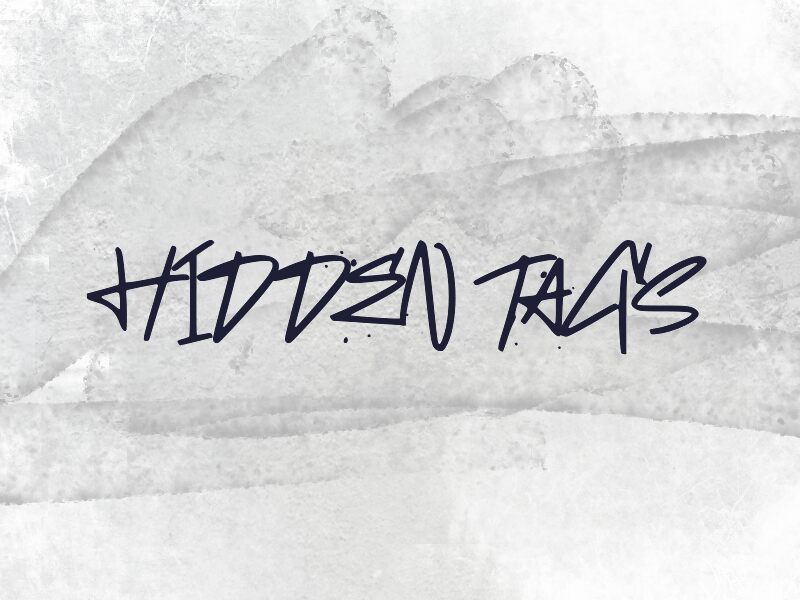
h Hidden Tags font by wep is a free graffiti font full of dynamic energy. The designer studied the elements and patterns of traditional writing systems such as calligraphy and combined them with a modern contemporary edit. Expect a lively and unique writing style with a bold presence and superb clarity. The font comes in just one weight which makes it easy to get started with for designers and others in need of it.
The informal handwritten style of h Hidden Tags makes it suitable for the same applications of such fonts with a personalized touch. Use it for notes, messages, signs, banners, or for headings in magazines. And do not stop there, as it is also a good fit for headlines, short texts, wedding programs, business cards, and much more!